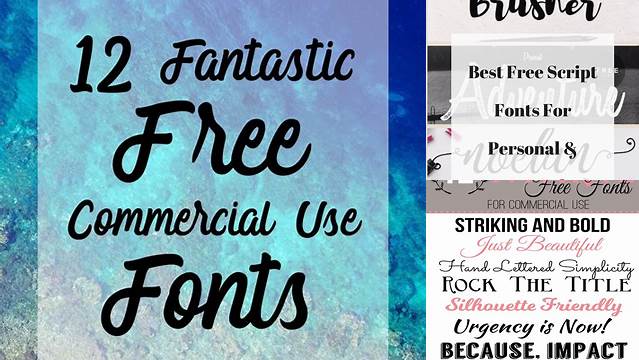
Unlock Your Creativity: Free Fonts For Personal & Commercial Use
Hey design enthusiasts! Ever feel like your projects are missing that certain something? You've got the ideas, the layout is killer, but the typography just isn't popping? Well, guess what? You don't need to break the bank to get amazing fonts! Today, we're diving deep into the fantastic world of free fonts for personal and commercial use. That's right, guys, you can score some seriously stylish typefaces that are perfect for everything from your personal blog or social media posts to your client work and business branding, all without spending a dime. We're talking about fonts that will elevate your designs, make your text readable and engaging, and give your projects that professional polish. So, whether you're a seasoned designer looking to expand your library, a small business owner wanting to give your brand a fresh look, or a hobbyist just having fun, this guide is for you. Let's get these awesome free fonts into your toolkit!
The Magic of Free Fonts for Commercial Use
When we talk about free fonts for commercial use, we're unlocking a treasure chest of design possibilities without the hefty price tag. Many designers and foundries generously offer their creations under licenses that permit you to use them in projects intended for sale or business promotion. This means you can incorporate these beautiful typefaces into logos, websites, marketing materials, product packaging, and pretty much anything that relates to your business. It's a game-changer for startups, small businesses, and freelancers who need professional-looking branding but operate on a tight budget. Imagine crafting a stunning logo with a unique font or designing a brochure that catches the eye with elegant typography – all for free! The key is to always check the specific license attached to each font. While many are completely free for commercial endeavors, some might have minor restrictions, like not being allowed to resell the font itself or use it in a way that competes directly with the original designer. But generally, the landscape of free fonts for commercial use is incredibly generous and allows for a massive amount of creative freedom.
Exploring Different Font Categories for Free
Navigating the world of typography can be a bit overwhelming, but breaking it down by font category makes it super accessible, especially when we're hunting for free fonts for personal and commercial use. Let's talk about the classics first: Serif fonts. These are your timeless beauties, with the little feet (serifs) at the end of strokes, like Times New Roman or Georgia. They exude tradition, reliability, and sophistication, making them perfect for books, long articles, and anything aiming for a classic feel. Then you've got Sans-Serif fonts. Think Arial or Helvetica – clean, modern, and super readable, especially on screens. They're fantastic for web design, headlines, and branding that wants to feel contemporary and approachable. Script fonts are another crowd-pleaser, mimicking handwriting or calligraphy. They add a touch of elegance, romance, or personality, ideal for invitations, greeting cards, or accent text. Just be mindful of readability with scripts; they're often best used sparingly. Display fonts are the showstoppers – bold, quirky, decorative, and designed to grab attention. They're perfect for posters, headlines, and anywhere you need a big visual impact. Finding free versions of these diverse categories means your design arsenal can be stocked with everything you need for any project, from a serious corporate report to a fun, casual party invitation.
Discovering Bold and Expressive Free Display Fonts
When you need your text to make a statement, that's where bold and expressive free display fonts come into play, guys. These aren't your everyday reading fonts; they're the rockstars of the typography world, designed to grab attention and convey a specific mood or theme. Think chunky serifs, quirky serifs, hand-drawn styles, geometric wonders, and anything with a bit of oomph. They are absolutely perfect for headlines, posters, album covers, t-shirt designs, and any branding element that needs to stand out from the crowd. The beauty of finding free display fonts is that you can experiment with really unique and artistic styles without any financial commitment. Want a retro vibe for your band's flyer? There are free display fonts for that. Need something futuristic and sleek for a tech conference poster? Yep, you can find those too. The key here is to remember that while they are visually striking, they might not be the best choice for body text because they can be difficult to read in large blocks. Use them strategically for impact! Websites like Google Fonts, Font Squirrel, and DaFont are treasure troves for these kinds of eye-catching, free display fonts that are often available for both personal and commercial use, provided you check the specific licensing terms. They really allow you to inject personality and visual flair into your projects, making them memorable and impactful.
The Versatility of Free Sans-Serif Fonts for Modern Design
In today's digital-first world, the versatility of free sans-serif fonts for modern design cannot be overstated, seriously. These fonts, characterized by their clean lines and lack of serifs (those little decorative strokes at the ends of letters), are the backbone of contemporary digital interfaces, websites, and branding. Their inherent readability on screens of all sizes – from tiny mobile displays to large desktop monitors – makes them an absolute must-have in any designer's toolkit. When you can access high-quality, free sans-serif fonts, you're essentially equipping yourself with the tools to create user-friendly, professional, and aesthetically pleasing digital experiences. Think about the user interface of your favorite app or the clean layout of a popular news website; chances are, they're using sans-serifs. They convey a sense of clarity, efficiency, and approachability, which is crucial for engaging users and communicating your message effectively. Whether you need a geometric sans for a minimalist look, a humanist sans for a friendlier feel, or a grotesque sans for that classic, no-nonsense vibe, there's a free option out there. Google Fonts is an incredible resource for this, offering a vast library of sans-serifs that are licensed for commercial use, allowing you to build beautiful, functional websites and applications without worrying about font licensing costs. They are the workhorses of modern design, adaptable to countless applications, and thankfully, readily available for free!
Finding Free Serif Fonts for Classic and Elegant Projects
When your project calls for a touch of tradition, elegance, and a sense of timelessness, finding free serif fonts for classic and elegant projects becomes your mission. Serif fonts, with their distinctive little feet or strokes at the ends of letterforms, have been around for centuries and carry an inherent gravitas and readability that’s hard to beat for longer texts. They often evoke feelings of trustworthiness, authority, and sophistication, making them ideal for literature, academic papers, formal invitations, and brands that want to project a classic, established image. The good news is that the world of free fonts is rich with beautiful serif options. You can find everything from the sturdy, reliable serifs that are great for body text in books and articles, to more decorative and ornate styles that can add a flourish to headings or branding elements. Websites like Font Squirrel and Google Fonts offer curated selections of high-quality serif fonts that are often completely free for both personal and commercial use. This means you can create beautiful print materials, design elegant websites, or develop sophisticated branding without incurring hefty licensing fees. Imagine designing a wedding invitation with a beautiful, free script-like serif font or creating a company brochure that exudes trustworthiness with a classic Garamond-style typeface – all thanks to the availability of these fantastic free resources. They truly allow you to infuse your designs with a sense of history and refinement.
Understanding Font Licenses: Personal vs. Commercial Use
Navigating font licenses: personal vs. commercial use is super important, and honestly, it’s not as scary as it sounds. Think of a font license as the 'rules of the road' for using a typeface. When a font is licensed for 'personal use,' it means you can use it for your own enjoyment – like on your personal blog, your social media posts that aren't promoting a business, or maybe a school project. Basically, anything that doesn't involve making money or promoting a business directly. On the flip side, 'commercial use' licenses give you the green light to use the font in projects that are for business purposes. This includes things like logos, websites for your company, advertisements, brochures, products you sell, and anything else that contributes to your business's revenue or brand identity. Why is this distinction crucial? Using a font commercially without the proper license can lead to legal issues, which is definitely not a vibe we're going for. Most free font sites are pretty clear about this. Sites like Google Fonts and Font Squirrel are fantastic because they typically offer fonts with open licenses (like the SIL Open Font License or Apache License) that explicitly permit commercial use. However, whenever you download a font from less curated sources, always take a moment to check the included license file or the description on the download page. It’s a small step that ensures you’re using the font legally and respectfully, allowing you to create amazing work with peace of mind.
The Best Places to Find Free Fonts for Commercial Use
So, you're on the hunt for the best places to find free fonts for commercial use? You've come to the right spot, guys! There are some seriously awesome online hubs where designers and creators share incredibly high-quality fonts that you can use for your business or client work without any cost. My absolute go-to is Google Fonts. It's massive, features thousands of fonts, and everything is licensed under the Open Font License (OFL), which means you can use them commercially, embed them in your websites, and basically do whatever you want with them, no questions asked. It's a lifesaver! Then there's Font Squirrel. They are amazing because they meticulously hand-select free fonts that are definitely licensed for commercial use. They even offer web font kits, which makes implementing them on websites a breeze. Another fantastic platform is DaFont. While it has a huge variety, you need to be a bit more careful here; look for the '100% Free' or 'Free for Commercial Use' tags. It’s got everything from the super clean to the wonderfully quirky. Don't sleep on Behance either; many designers showcase their free font releases there, often with commercial use permissions clearly stated. Lastly, Canva’s design platform also offers a ton of free fonts within their editor that are licensed for commercial use, making it super convenient if you’re already using their tools for social media or presentations. Remember, always give the license a quick once-over just to be 100% sure, but these sources are gold!
Keeping Your Font Library Updated with Free Font Finds
Staying creative and on-trend means your font library needs a little refresh now and then, and guess what? You can do it all for free! Keeping your font library updated with free font finds is a smart and budget-friendly way to ensure your designs always feel fresh and exciting. Think of it like collecting cool vinyl records or unique art prints – your font collection is a core part of your creative toolkit. Regularly browsing sites like Google Fonts, Font Squirrel, DaFont, and Behance for new releases or hidden gems can yield fantastic results. You might discover a new sans-serif that’s perfect for your next web project, a quirky script that’s ideal for a holiday card, or a bold display font that could revolutionize your next headline. Make it a habit, maybe once a month, to dedicate some time to exploring these resources. Download fonts that catch your eye and organize them into folders (e.g.,